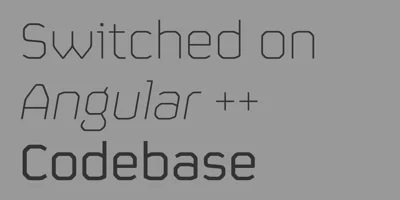
FS Sinclair Font
Introducing FS Sinclair Font, a robust and versatile sans-serif family that combines British typographic heritage with contemporary functionality. Inspired by classic UK road signage, this authoritative typeface delivers exceptional clarity and impact for both information design and branding applications.
Why FS Sinclair Stands Out
1. Transport-Inspired Design
Optimized character shapes for quick recognition
High x-height for maximum legibility
Balanced stroke weights for all viewing conditions
2. Universal Application Power
Engineered for:
Wayfinding and signage systems
Urban design and architecture
Digital interfaces
Editorial design
Corporate communications
3. Technical Excellence
6 weights from Light to Bold
True italics for each weight
Extended Latin character set
Optimized for small-size rendering
Professional Implementation
FS Sinclair Font excels in:
Transportation signage
Government documentation
Technical manuals
Brand identity systems
Environmental graphics
Create clear information hierarchies
Designer Tip: Use Medium weight at 14pt for optimal wayfinding legibility.
FS Sinclair Font – Where British design heritage meets modern functionality!
Key Advantages:
Maintains integrity from 10mm to 10m
Perfect for high-speed reading
Excellent performance in low-light conditions
Why It's Special:
FS Sinclair adapts the proven clarity of UK transport typography for comprehensive design applications.
Perfect Pairing:
Combine with a humanist sans like FS Me for accessible information design.
Pro Insight:
The Bold weight works exceptionally well for digital departure boards and real-time information displays.
Includes transport pictograms
Alternative directional arrows
Special condensed figures
Design Heritage:
Developed in collaboration with UK transport typography experts, maintaining the DNA of Britain's world-class signage systems.
Expert Recommendation:
Use in Pantone 485C (transport red) for authentic British wayfinding impact.
Technical Note:
Character spacing follows UK Department for Transport standards for optimal recognition distances.